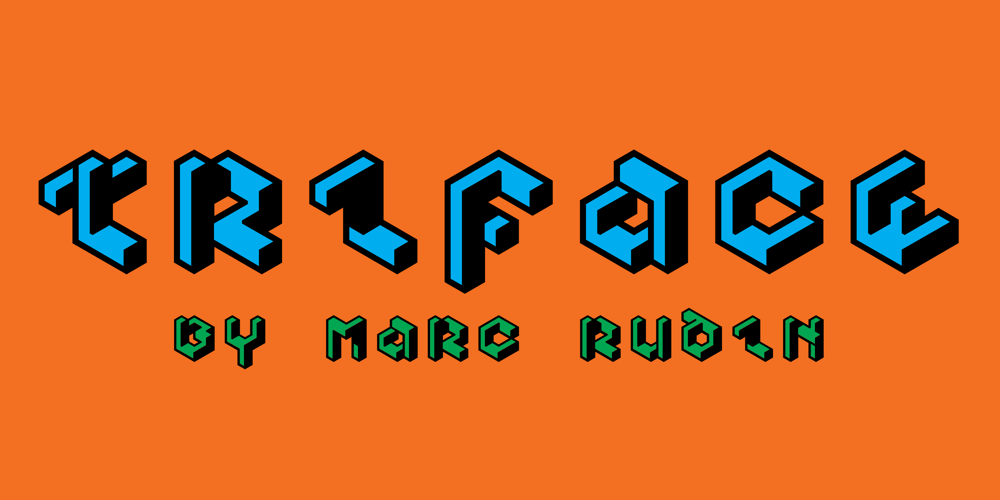
Triface Font Family was designed by Marc Rudin and published by Lafonts. Triface contains 2 styles and family package options. Triface, a monospaced font, is based on a strict geometric concept that also reflects the history of writing at a significant developmental stage, the so-called uncial. Not a true minuscule form, only certain letters show the beginning of ascenders and descenders. The underlying grid evokes surprising design possibilities. By filling in the outline stems, Triface Fill heightens the three-dimensional effect, easily distinguished from busy backgrounds.